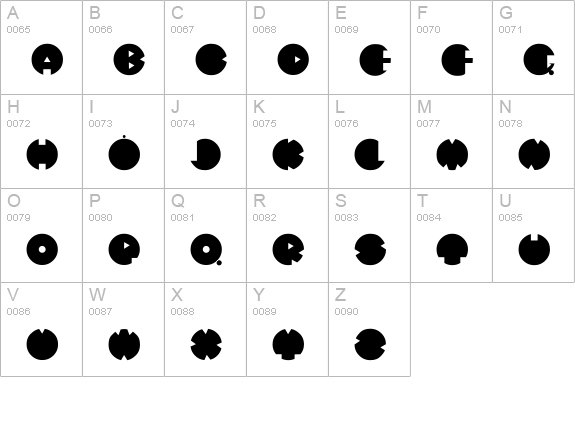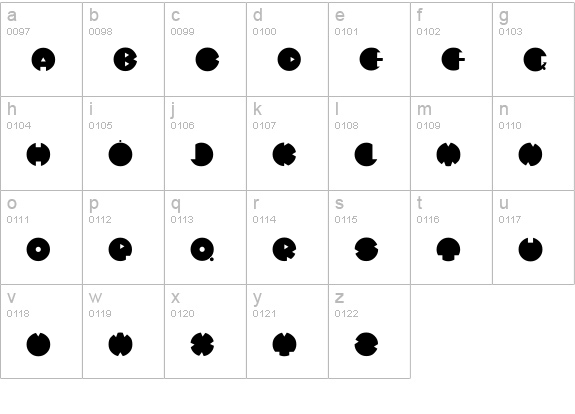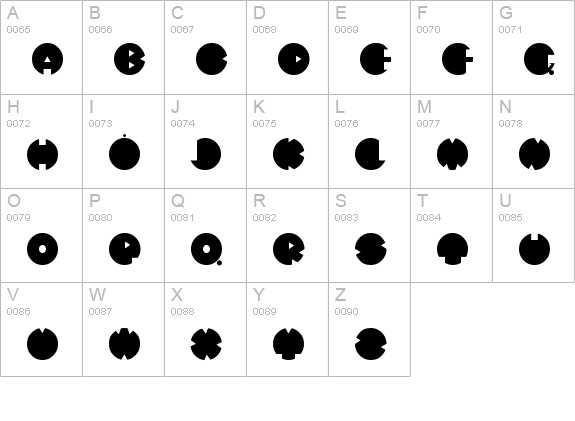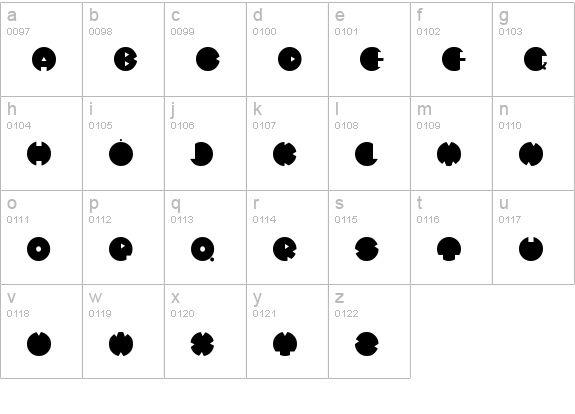
Mystery Circle Font Details
The Mystery Circle font is a captivating and enigmatic typeface that exudes an aura of intrigue and mystique. With its intricate circular patterns and mysterious glyphs, this font is perfect for adding an air of enigma to your designs. Whether you're working on a poster, logo, or any other creative project, Mystery Circle will surely make a bold statement. The best part? Mystery Circle is completely free to download at FontsMarket.com. So go ahead and unlock the secrets of this captivating font to add an element of mystery to your next design project.